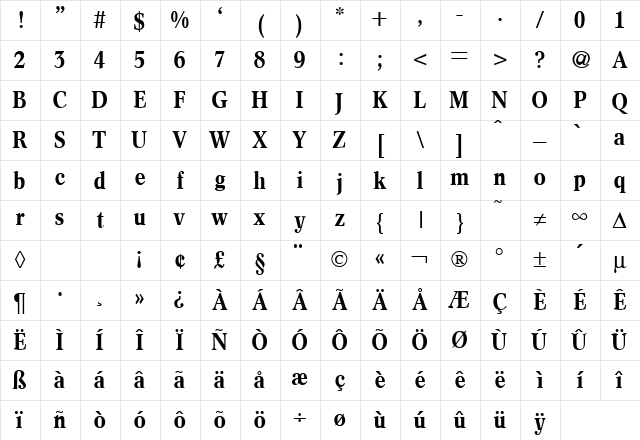
Complete ConceptNova Bold glyph index. Displaying only characters natively supported by ConceptNova Bold font.
ConceptNova is a composed and adaptable typeface that performs quietly and consistently across a wide range of design contexts. Its bold stroke weight gives it real presence on the page.